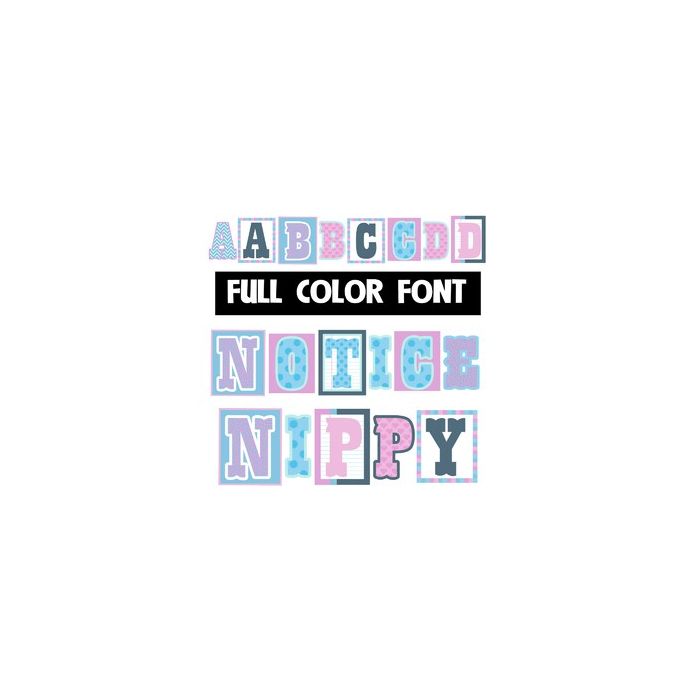
This full-color font features a mix of lettering styles in a whimsical, cool, wintery color palette. There is an alt case w/ additional color you can access with either Silhouette's or your system's character map.